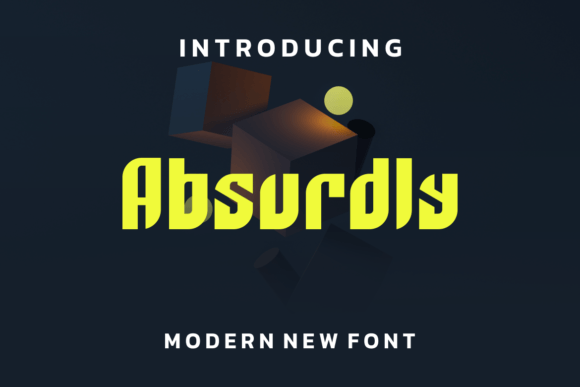
Behold Absurdly Font, a creation of Marvadesign, where boldness and authenticity collide! This modern display font is a force to be reckoned with, designed to captivate and command attention. Its striking presence is perfect for those seeking to make a statement, whether through logos, t-shirt printing, e-sport ventures, or any other project that demands individuality.
With Absurdly Font, your designs will transcend the ordinary and embrace the extraordinary. Its carefully crafted characters exude confidence and charisma, leaving an unforgettable impression. Imagine your logo standing out boldly, your t-shirts becoming conversation starters, and your e-sport graphics igniting passion and excitement.
But the versatility of Absurdly Font doesn't stop there. Its adaptability makes it shine in a kaleidoscope of contexts. Whether you're crafting eye-catching posters, brochures that leave a lasting impact, or social media posts that demand engagement, Absurdly Font is your trusted companion. Its versatility is a testament to its ability to transform your creative vision into a reality, regardless of the medium.
In a world saturated with monotony, dare to be different. Embrace Absurdly Font and embark on a journey of creative liberation. Its uniqueness will elevate your designs, setting them apart from the crowd and leaving an indelible mark on your audience.
Don't settle for the mundane; choose Absurdly Font and unleash your creative potential. Its boldness, authenticity, and versatility will ignite your passion and propel your projects to new heights.